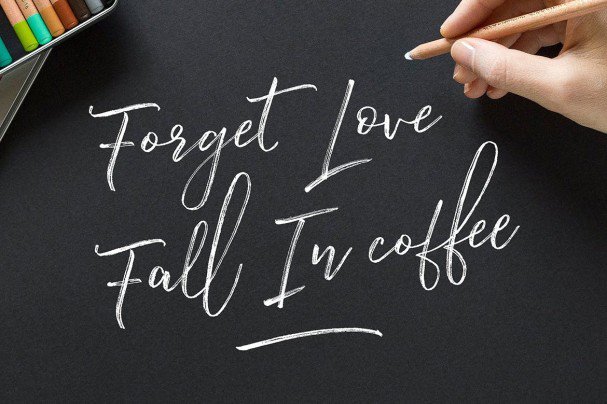
Experiment Brush Script Font
Experiment Brush Script Font is recognized for its distinctive bold and italic style, similar to the Marvel font. It can enhance your writing skills and make them more attractive.
Style of Experiment Brush Script Font Free